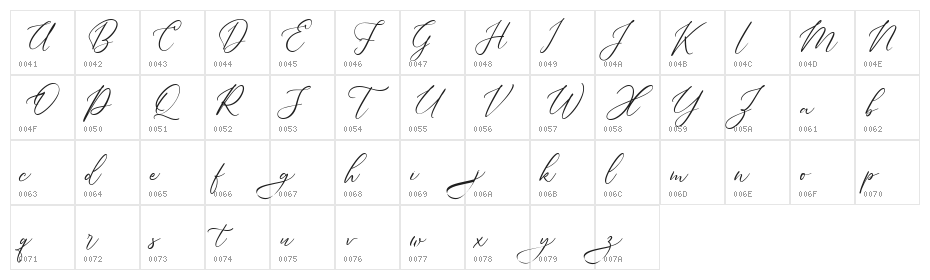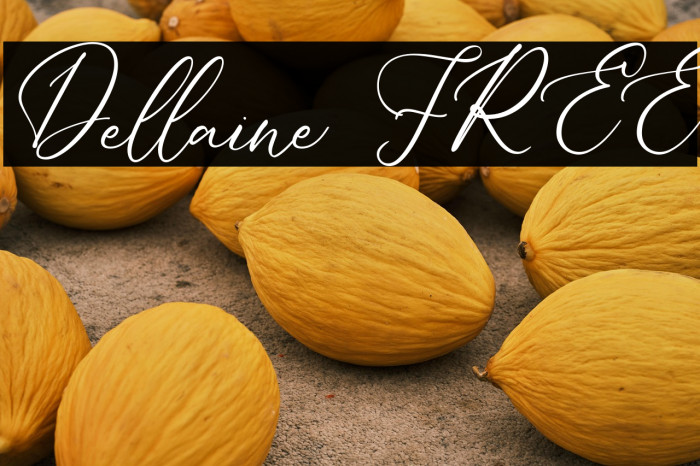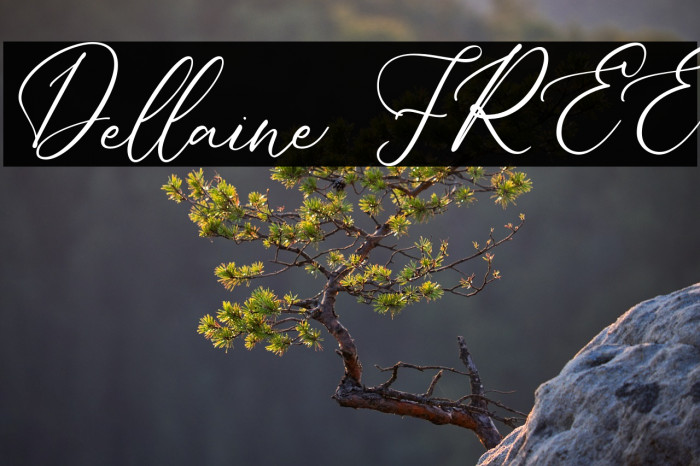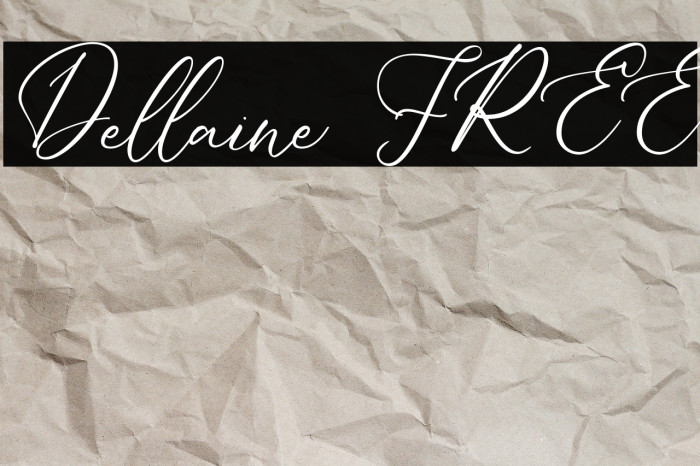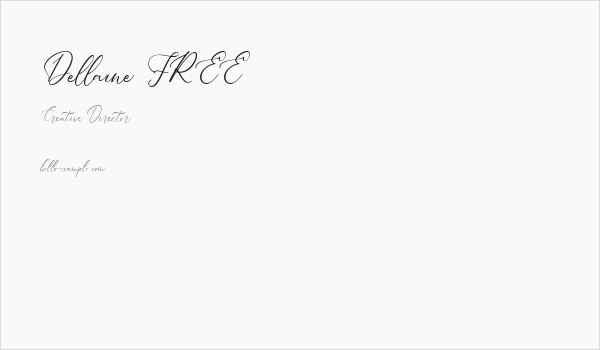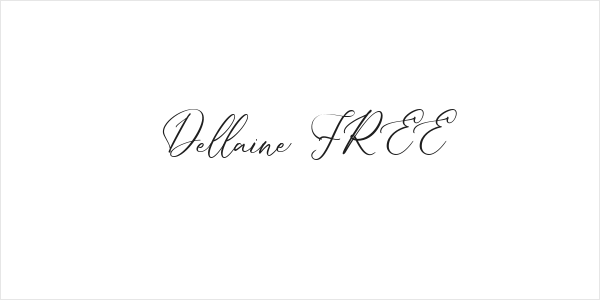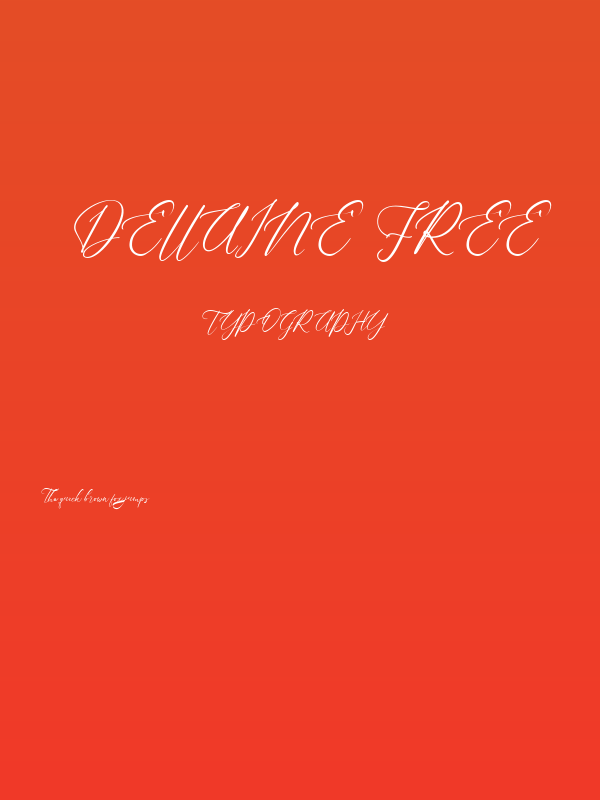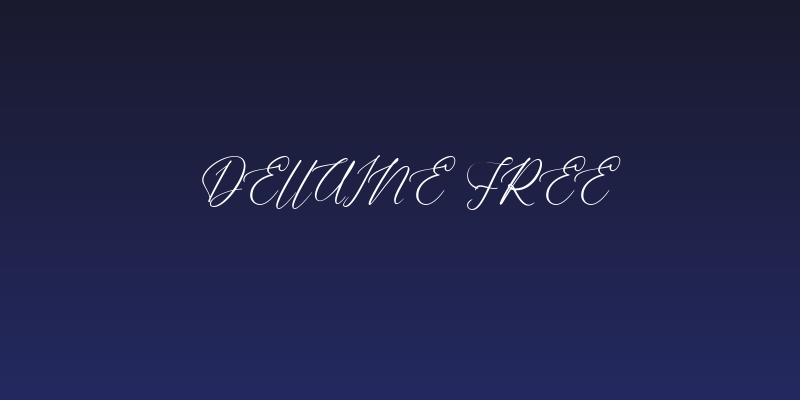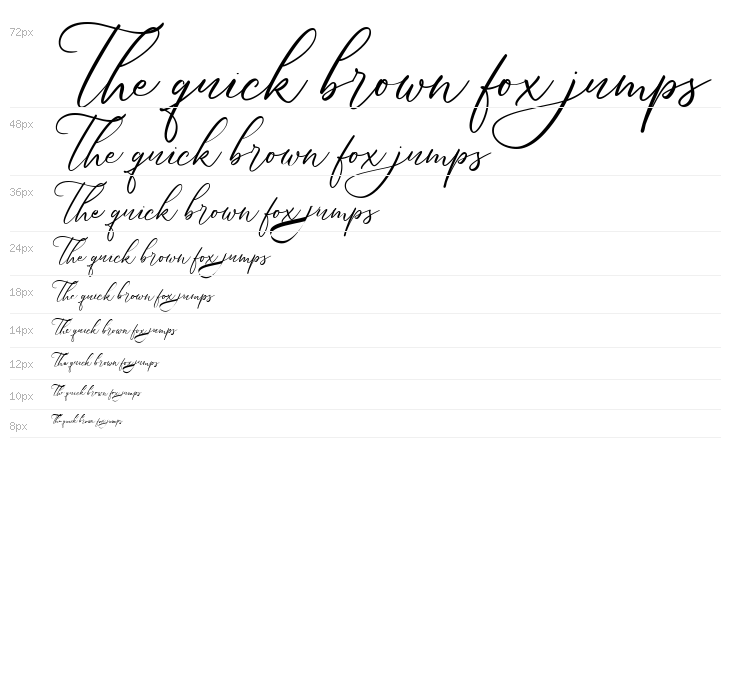
Dellaine FREE Font
Dellaine FREE Description
This elegant script font features flowing, interconnected letters that create a sense of fluidity and grace. The characters are designed with a high degree of contrast between thick and thin strokes, enhancing its sophisticated appearance. The uppercase letters are particularly ornate, with intricate loops and swirls that add a decorative touch. The lowercase letters maintain a consistent style, with smooth curves and a slightly slanted orientation, contributing to the font's overall harmonious look. This font is ideal for projects that require a touch of elegance and refinement.
| Use Case | Logos, Invitations, Decorative Headlines |
| Proposed Projects | Ideal for wedding invitations, elegant branding, personal stationery, and decorative headlines. |